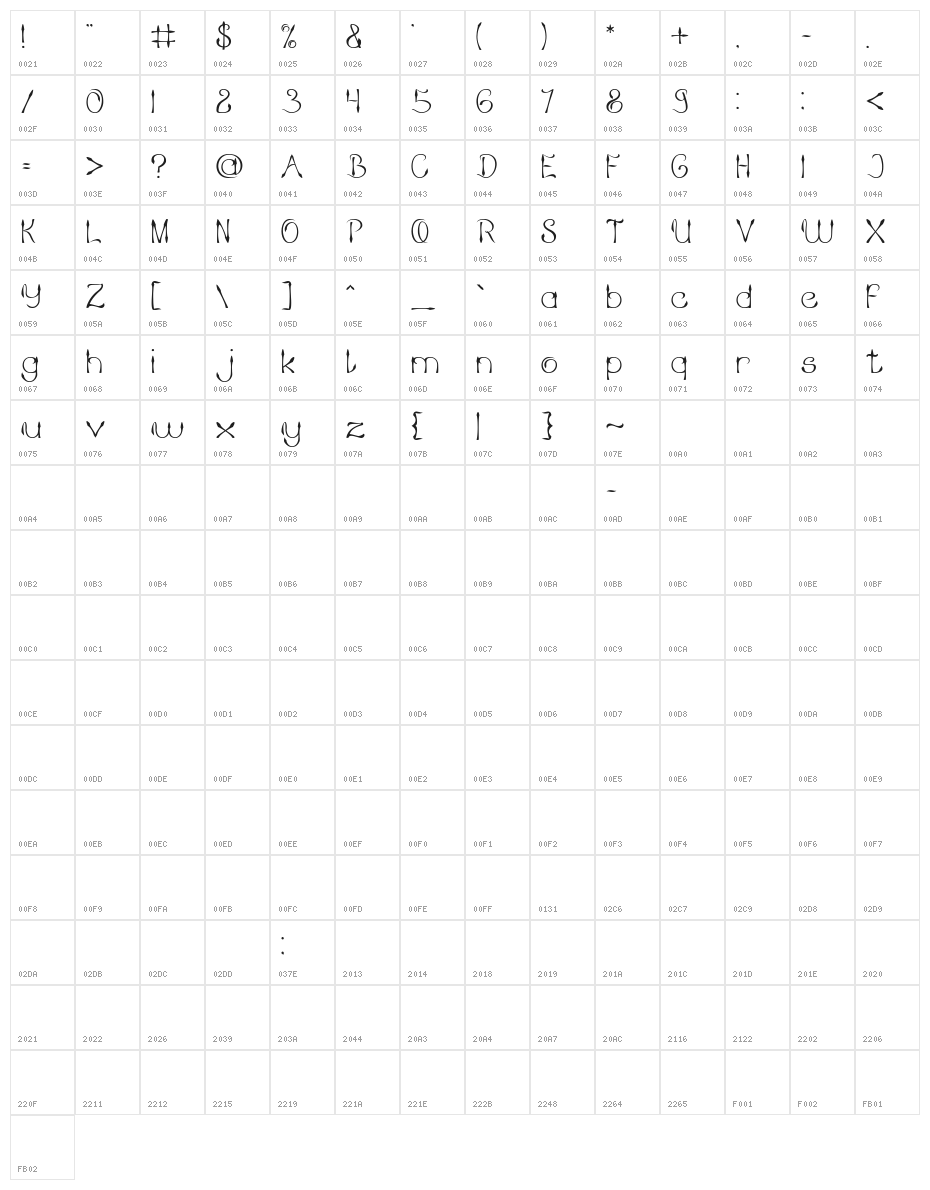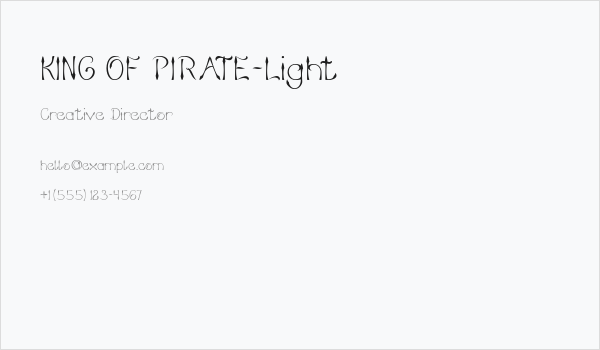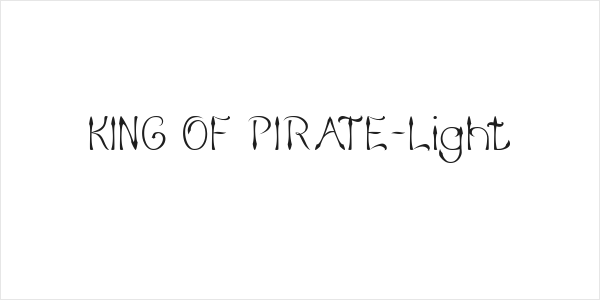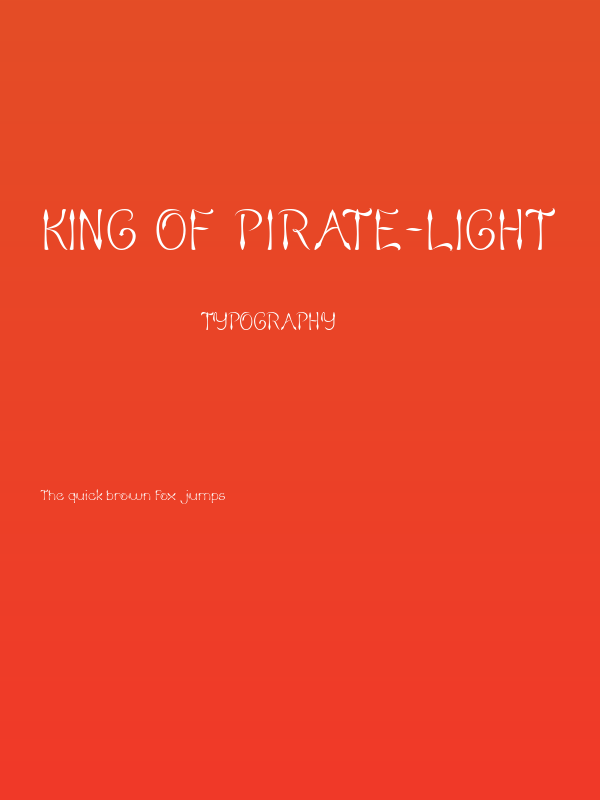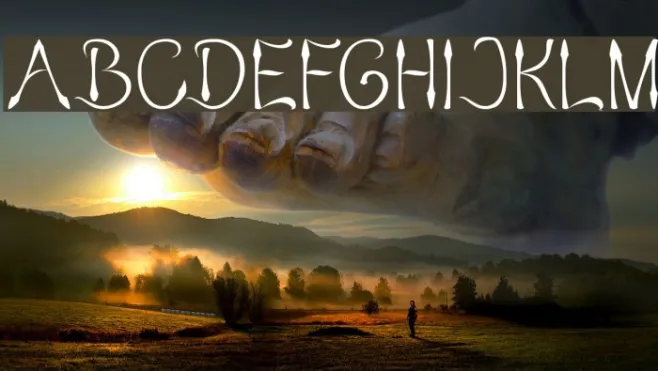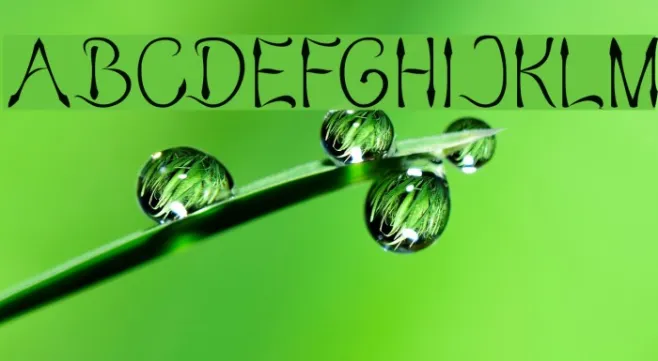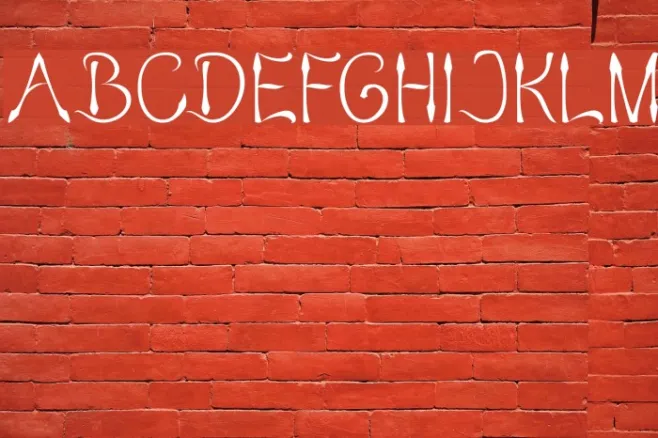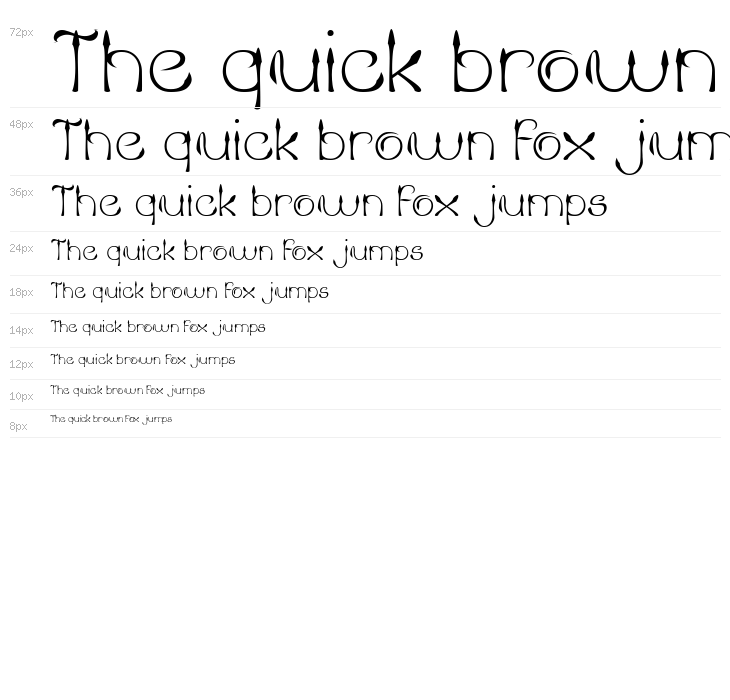
KING OF PIRATE-Light Font
KING OF PIRATE-Light Description
This font features a unique and playful design with a pirate-inspired theme. The characters have a whimsical, hand-drawn quality, with irregular strokes and playful curves that evoke a sense of adventure and fantasy. The uppercase letters are bold and prominent, while the lowercase letters maintain a consistent style with slightly more delicate lines. The numbers and special characters are crafted to match the overall aesthetic, adding to the font's cohesive look. The font's distinctive style makes it ideal for creative projects that require a touch of fun and imagination.
| Proposed Projects | Ideal for themed party invitations, children's book titles, fantasy game graphics, and playful branding. |